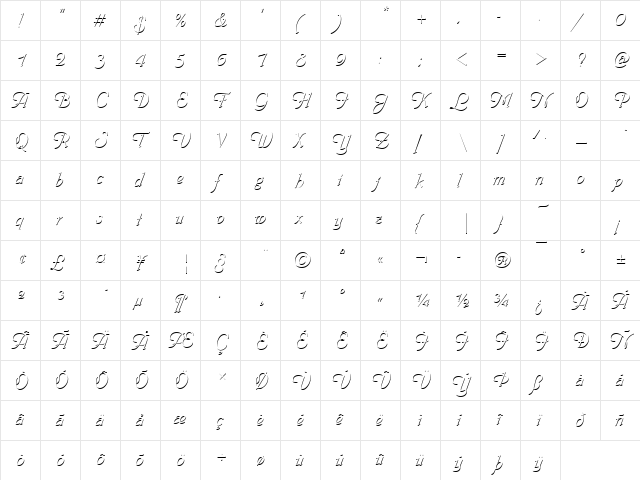
PhyllisOnlShaD Regular
Design Context for PhyllisOnlShaD Typeface
PhyllisOnlShaD is a composed and adaptable typeface that performs quietly and consistently across a wide range of design contexts.
Pro Tip: Use PhyllisOnlShaD in both headline and body roles to test its range before committing to a single application.